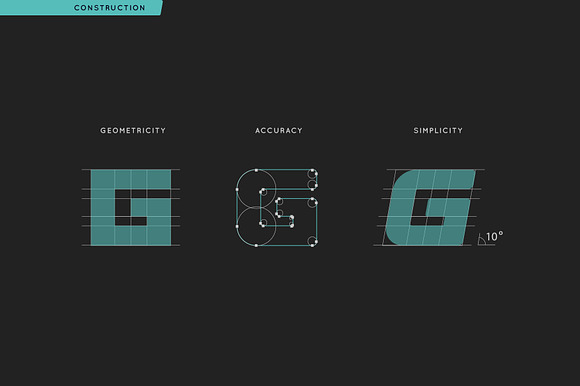
Design Power Font
I suggest you to pay attention to the "Design" font.
It's bold, with softened corners and some slope for dynamic effect. "Design" font has a unique charm and easy visual readability, so it's perfect for headlines, whether for sports events, automotive posters, logo or monograms designs.
Uppercase and lowercase english letters